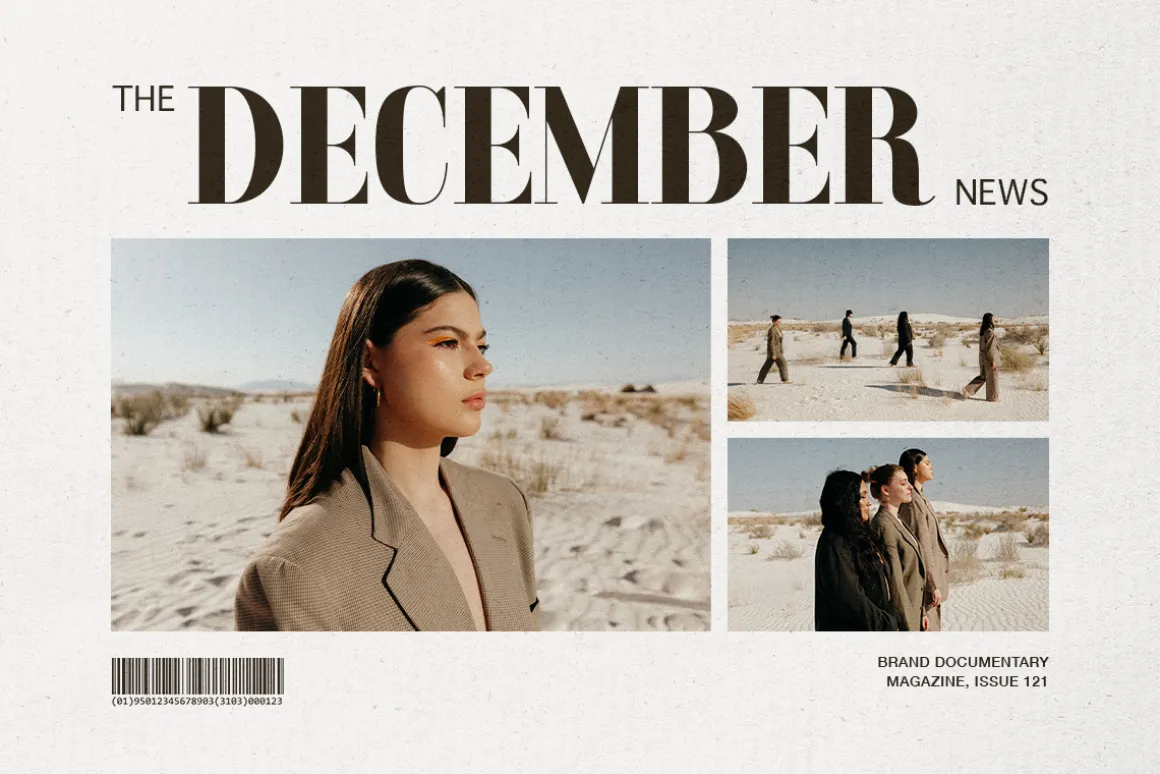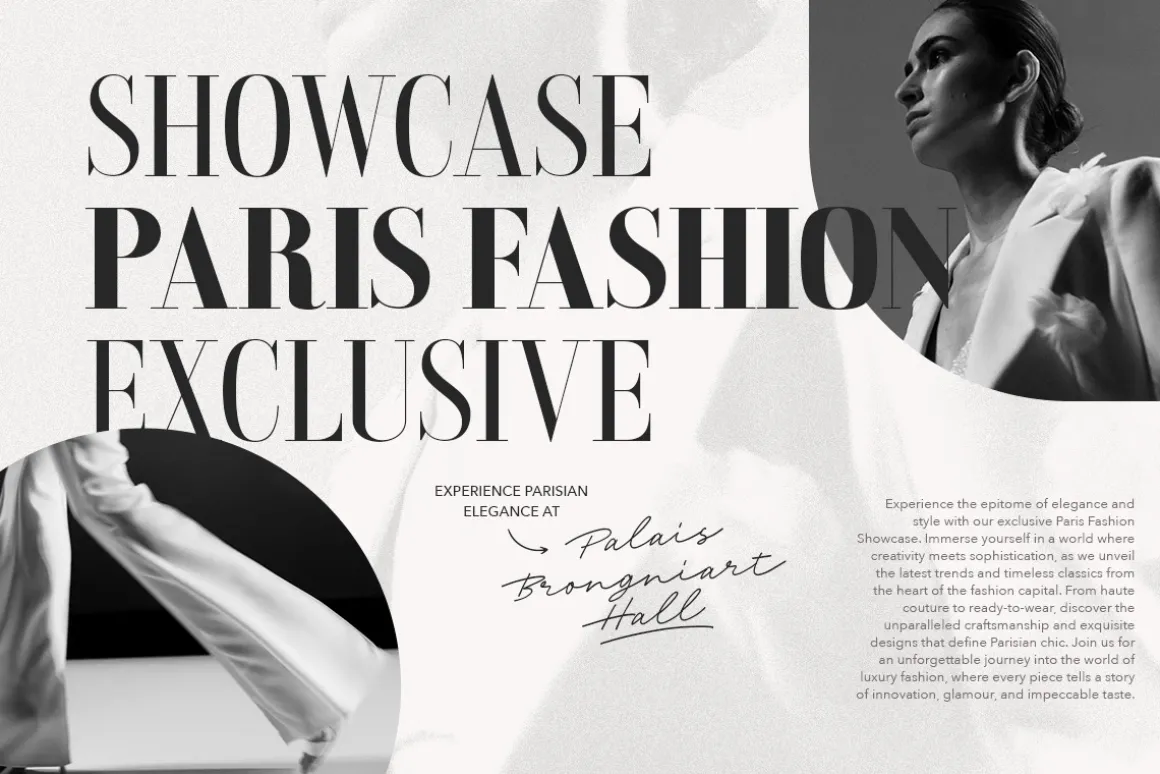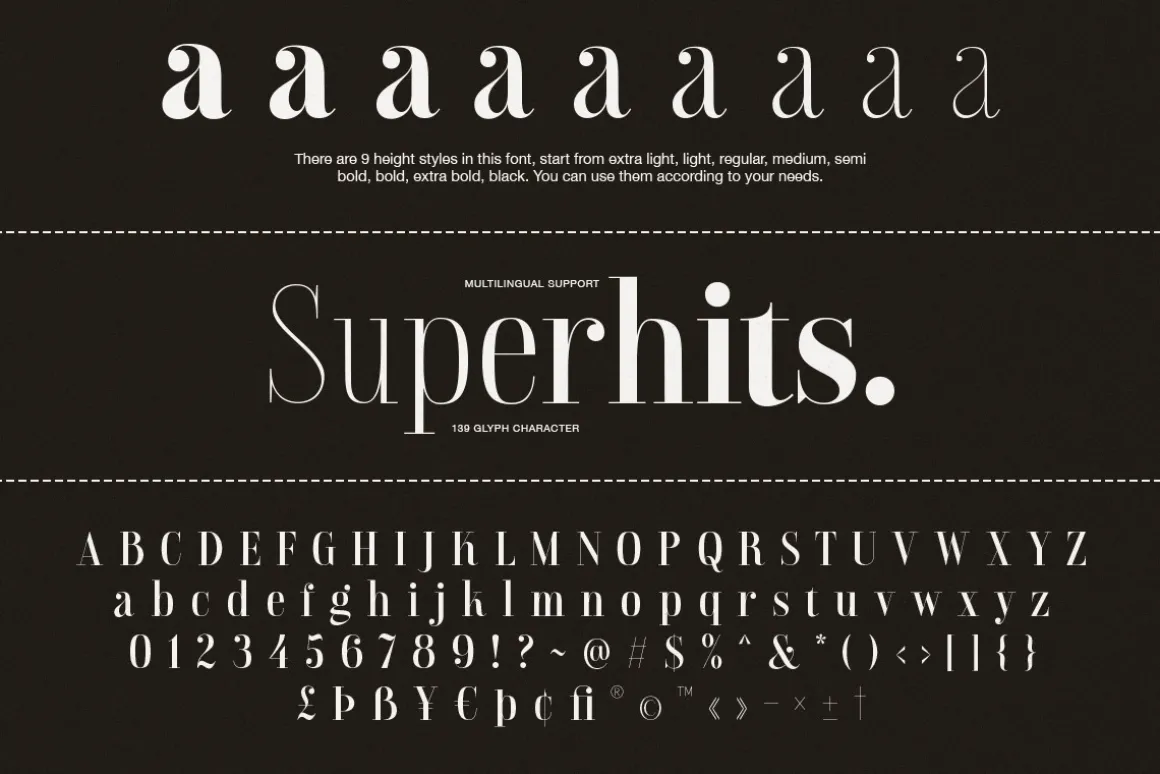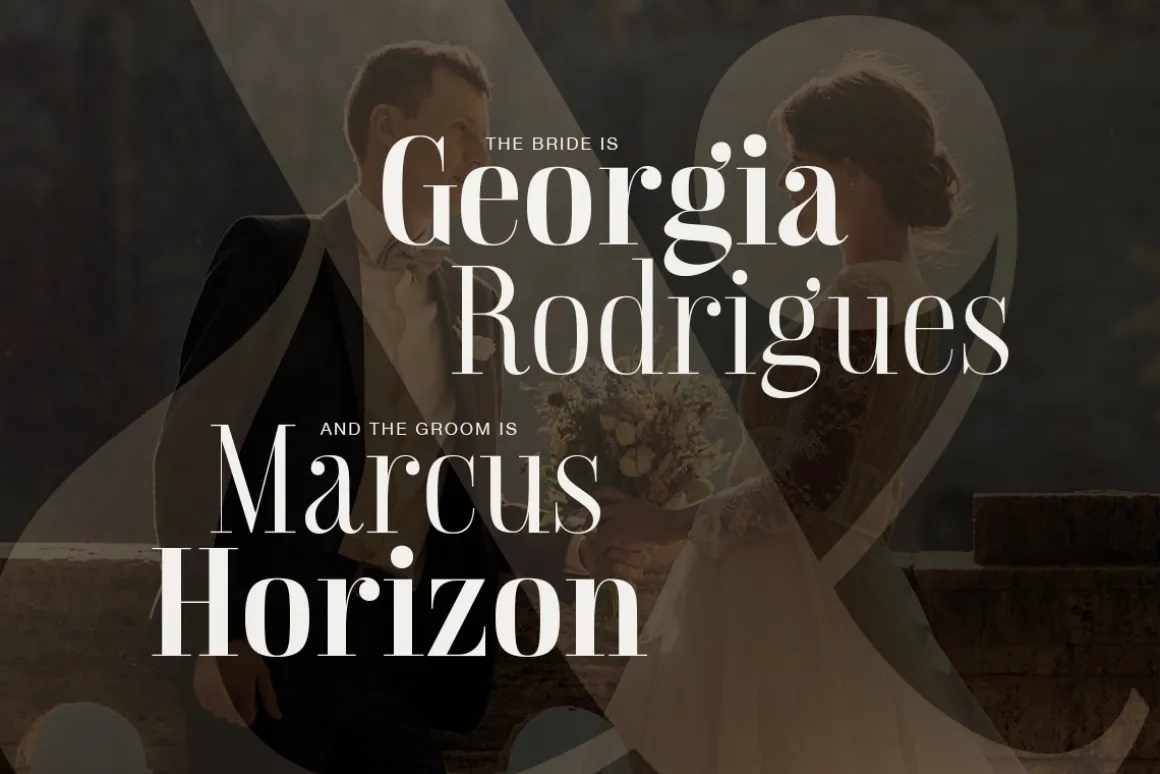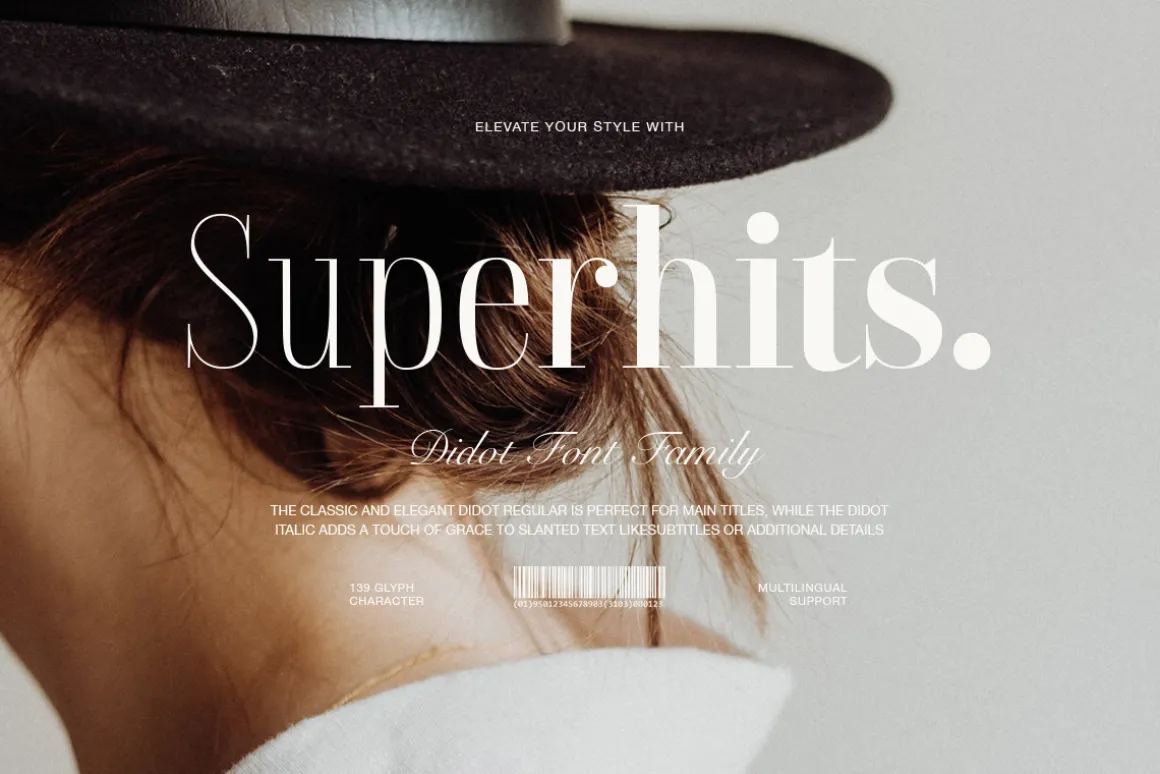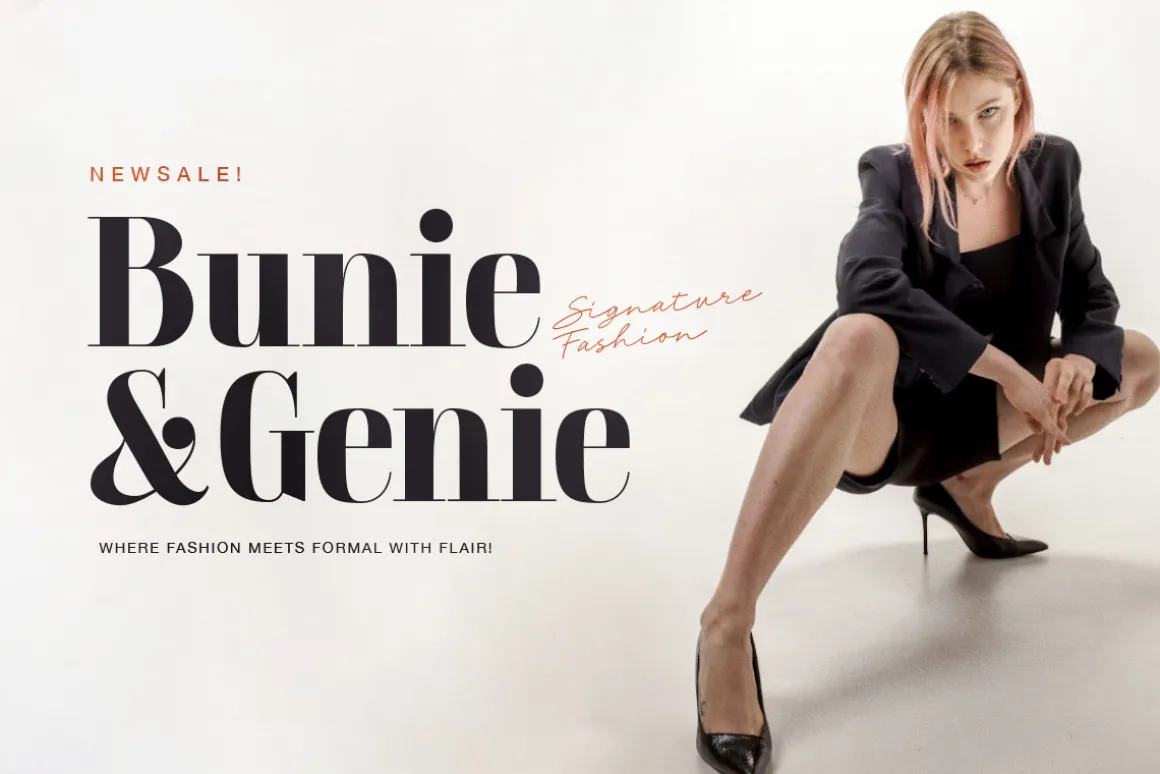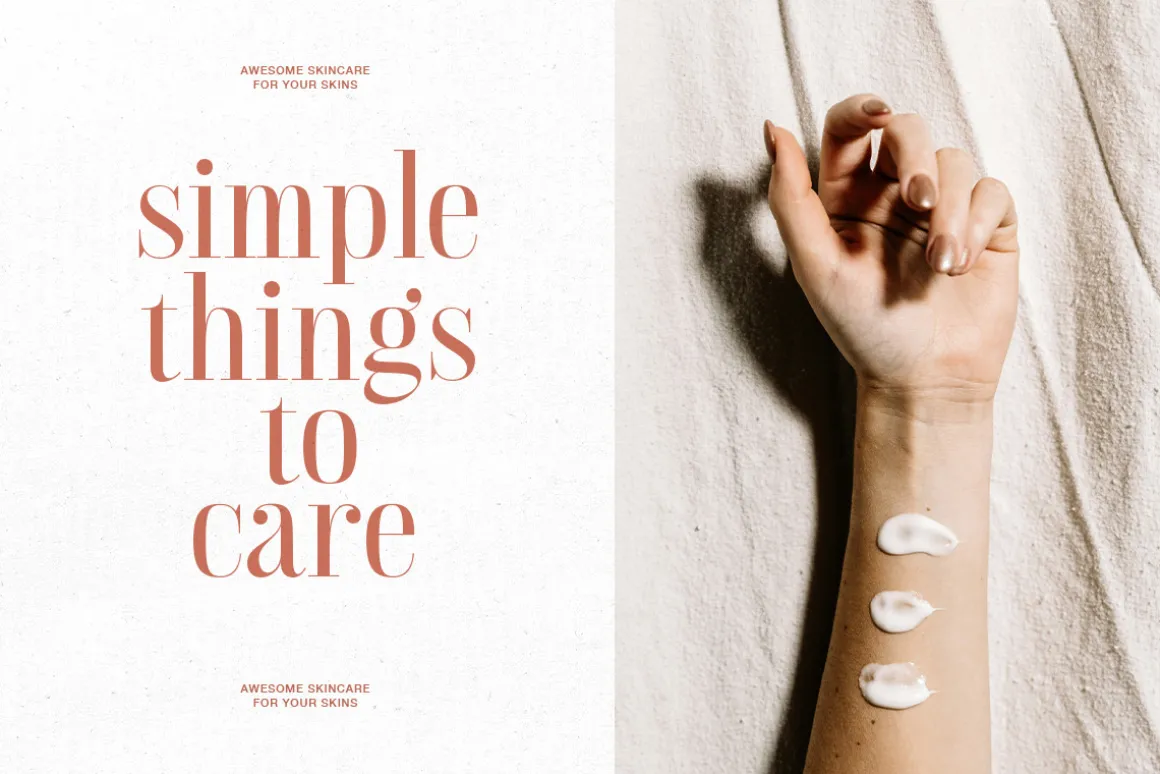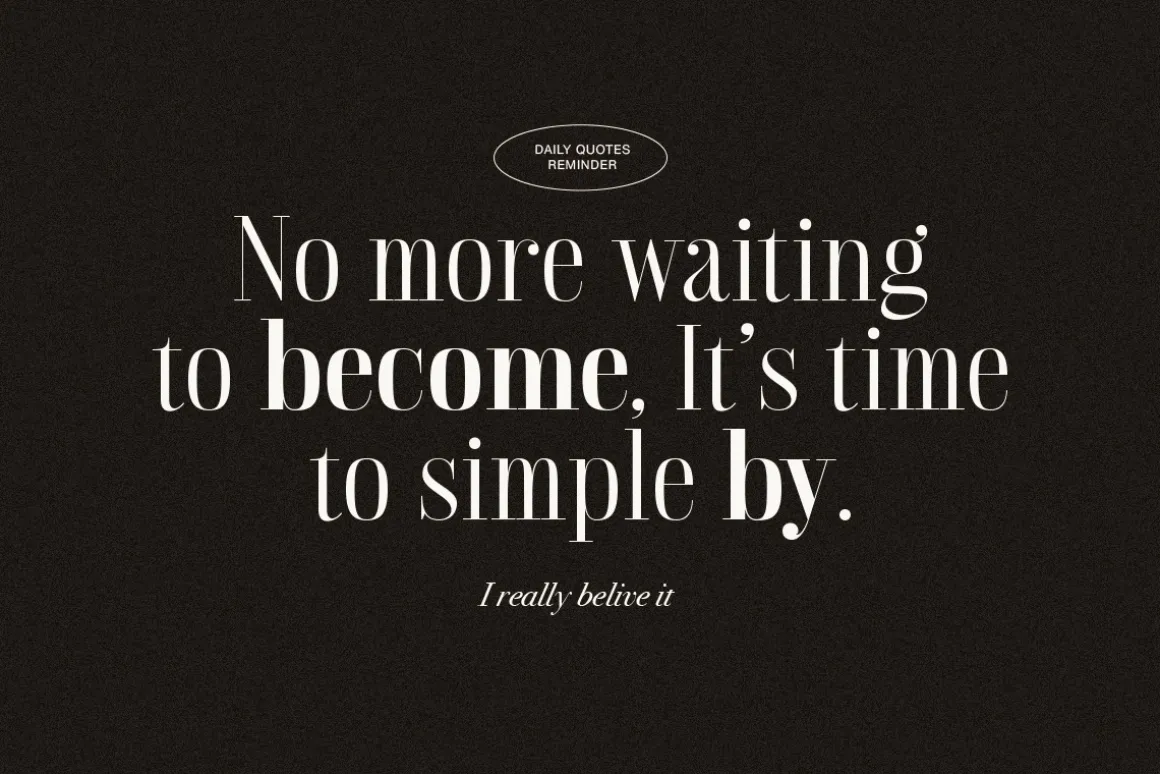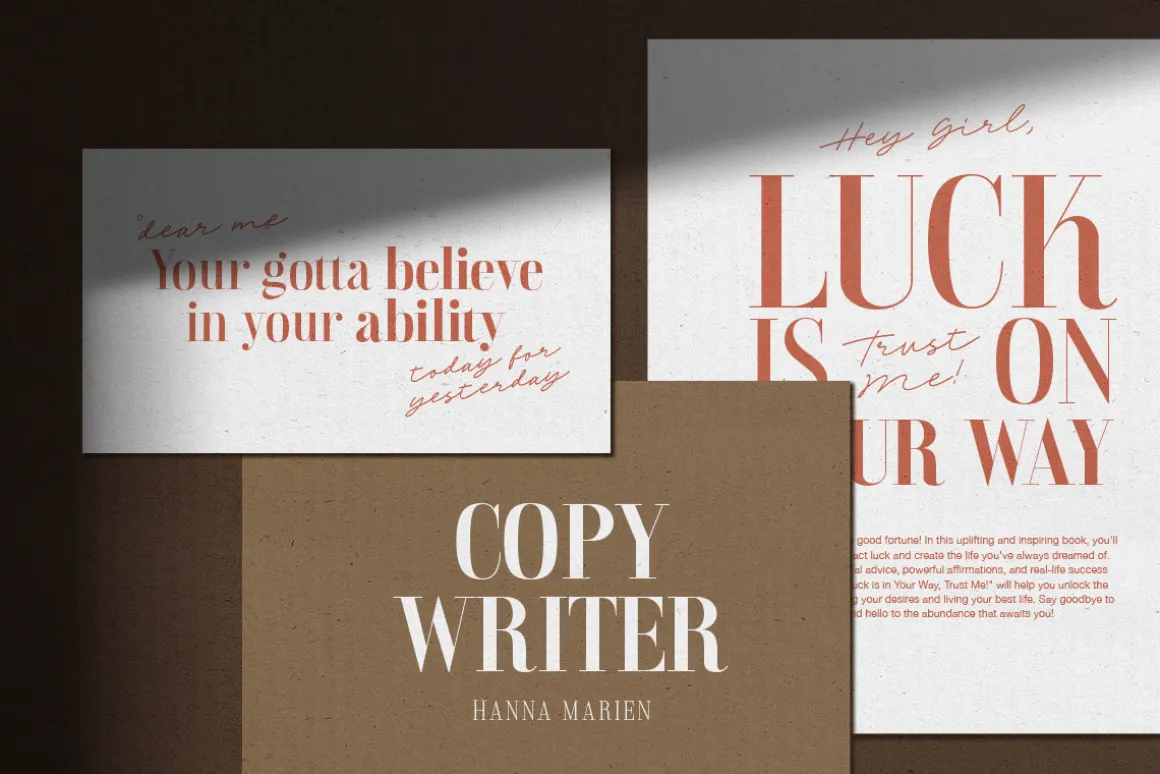
Introducing, Superhits, a didot style font family
Superhits is a classic and timeless serif with didot style. This font family have elegant and sophisticated characterized by high contrast between thick vertical and thin horizontal strokes, flat hairline serifs, and a strong geometric structure. Its refined curves and tapered strokes make it ideal for display purposes, particularly in fashion, luxury branding, editorial design, and formal invitations. With eight weight from Thin to Black that you can choose for your project. Superhits also support multi language.